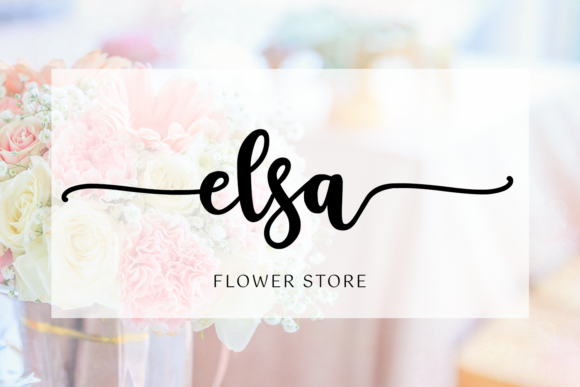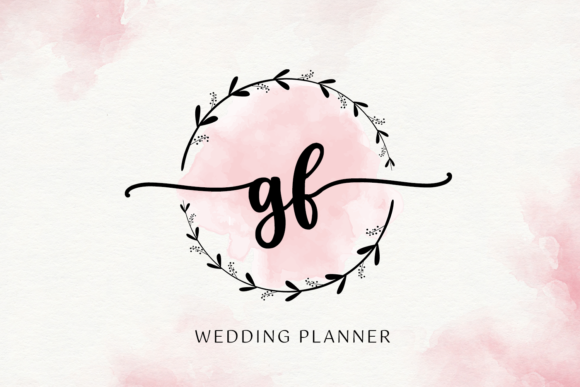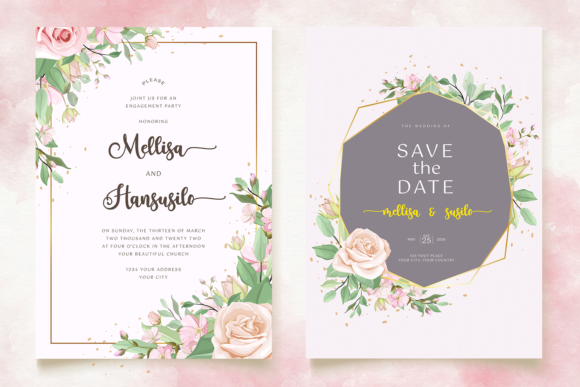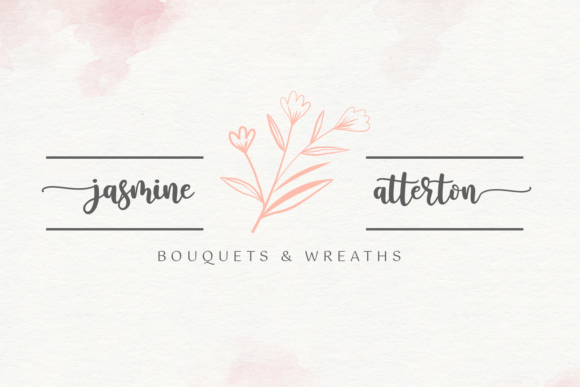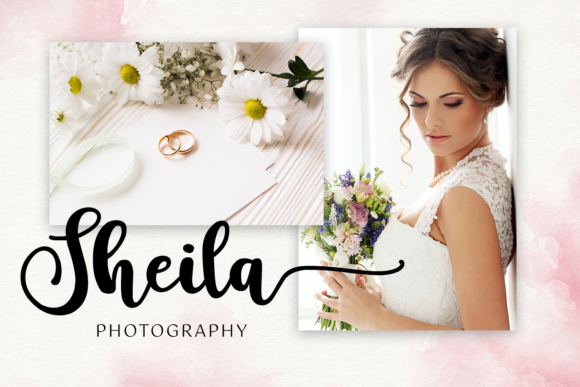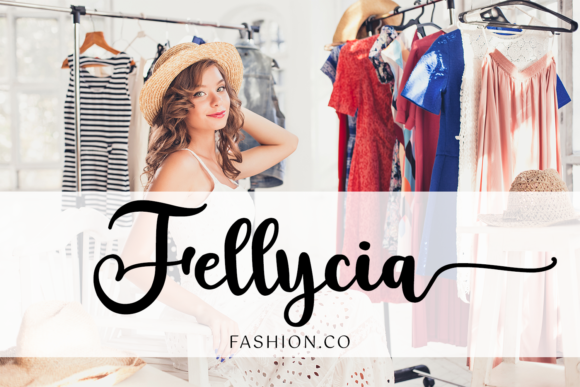
Introduction to Shalma Font
Shalma is a bold and beautiful handwritten font, carefully handcrafted to become a true favorite.
This font is the perfect fit for all of your logos, branding, social media, and crafty DIY projects .
Key Features of Shalma Font
Why Choose Shalma Font?
Shalma Font offers exceptional quality and versatility, making it a valuable addition to your design toolkit. Whether you’re creating for personal projects or commercial use, Shalma Font delivers professional results.